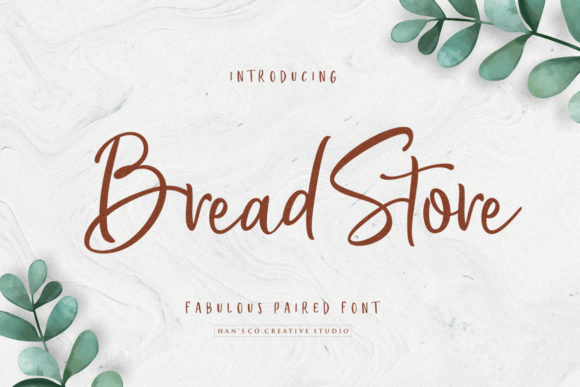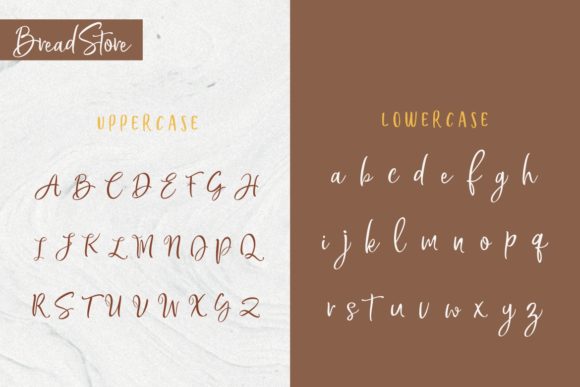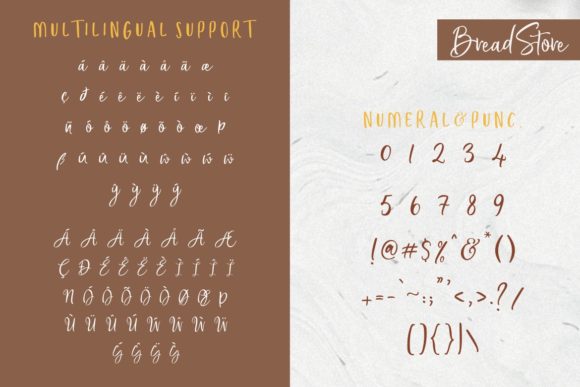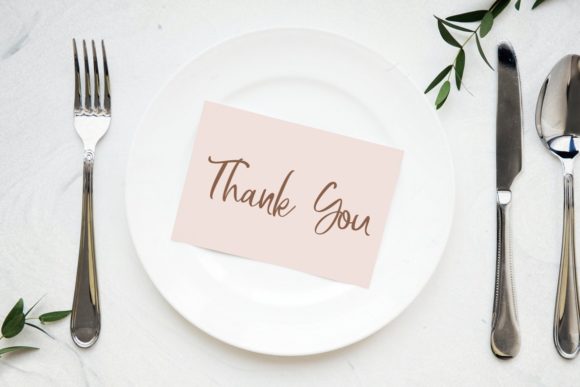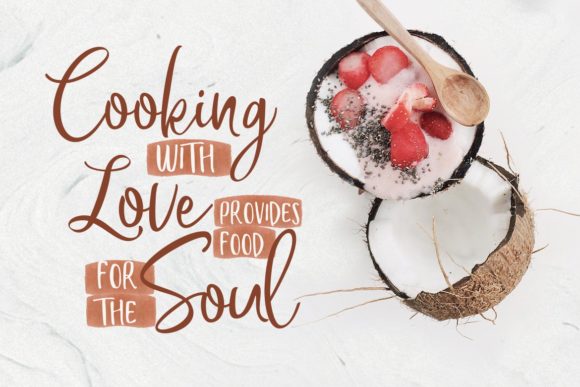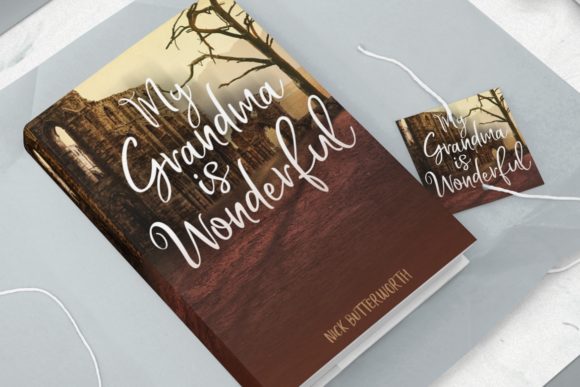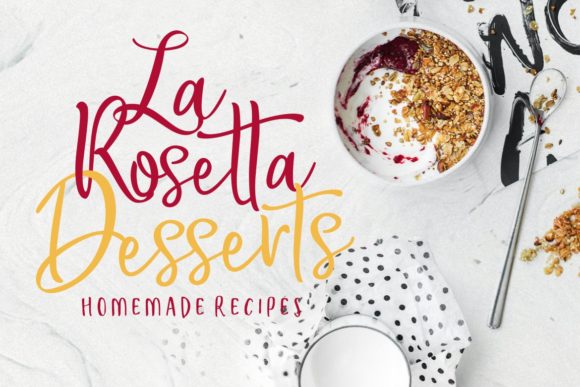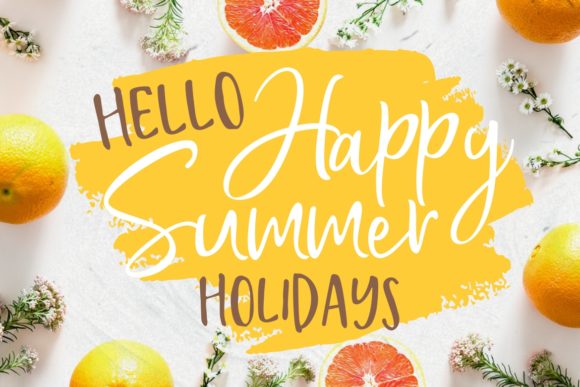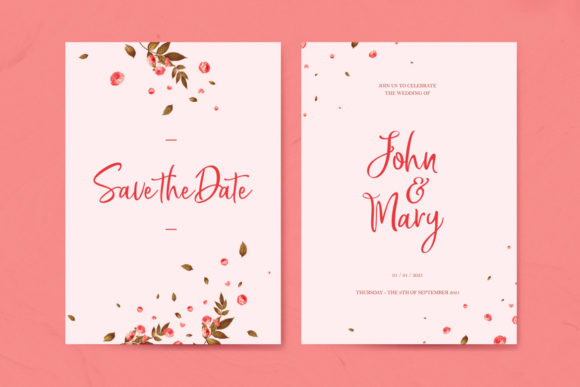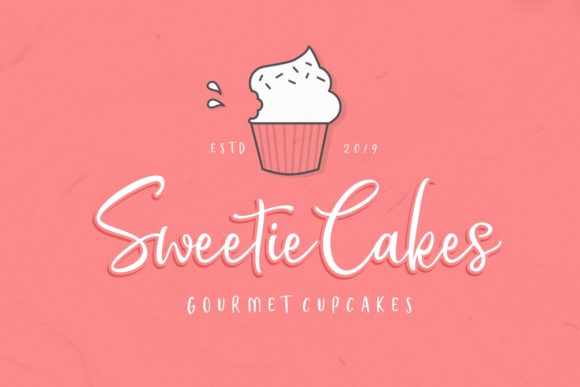
Bread Store Font
About Bread Store Font
Bread Store is a fun script font duo designed with an iconic curly and comical style. It perfectly represents elegance with its clean lines and modern swashes.